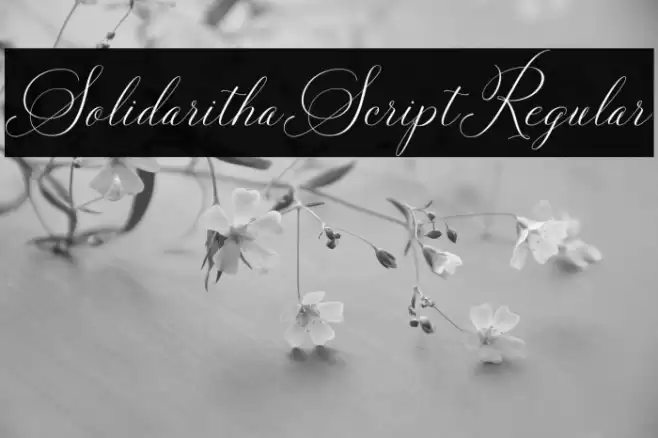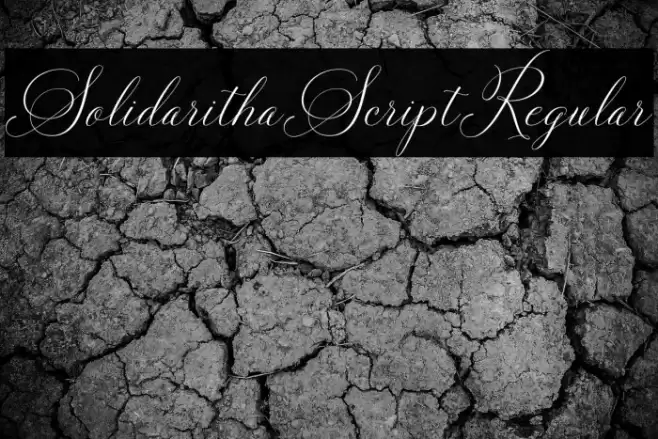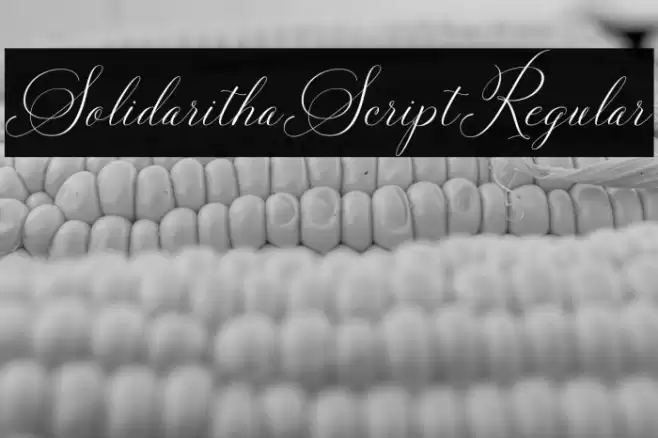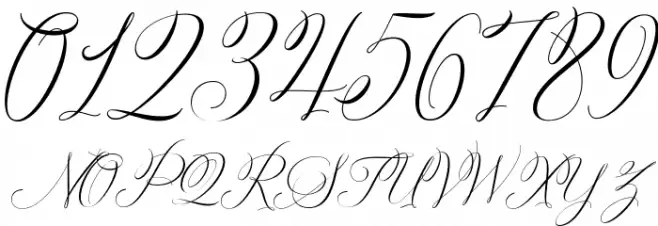
SolidarithaScript-Regular Font
SolidarithaScript-Regular Description
This elegant script font features flowing, interconnected letters with a classic calligraphic style. The uppercase letters are adorned with delicate flourishes, adding a touch of sophistication and grace. The lowercase letters maintain a consistent slant, enhancing the fluidity and continuity of the text. The numerals are equally stylish, with a graceful curvature that complements the overall aesthetic. This font is perfect for projects that require a refined and artistic touch, such as invitations, greeting cards, or branding materials. Its intricate design and attention to detail make it ideal for creating a luxurious and timeless impression.
An elegant script font with flowing, interconnected letters and classic calligraphic style from Regular fonts.
- Proposed Projects: Ideal for wedding invitations, elegant branding, greeting cards, and artistic projects.
- Character Spacing: Tight
- Overall Style: Classic
- Use Case: Logos, Invitations, Greeting Cards